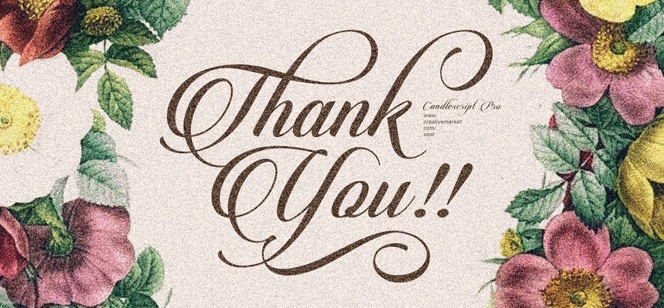
Candlescript Pro font
Candlescript Pro font is a modern display font with very distinctive handwritten appearance. The typeface is designed with meticulous attention to detail. What strikes you most when you first look at it is the expert use of the swashes which makes the font family really impressive and its letterforms – unique. It is obvious that Candlescript Pro’s roots are deeply in the calligraphy to which it owes its smooth, friendly appearance which makes it perfect for numerous applications such as logos, wedding invitations, titles, advertisement, etc. Evidently, the script is not suitable for body text. However, it is designed in a very versatile fashion which allows it to be combined perfectly with other typefaces, substantially beautifying your project.
Candlescript Pro comes in script and italic weights with the stunning 2850 glyphs provided and extras like upper and small caps, numerals, fractions, standard and discretionary ligatures, stylistic, contextual and titling alternates, and of course plenty of swashes. All this gives the users the limitless opportunities to create countless variations of the letters. There, the only frontier will be your imagination! However, we should mark that the variations of the glyphs work manually, not automatically. Also, Candlescript Pro font works best with OpenType compatible software which will allow you to use all of its features.
The beautiful Candlescript Pro font family is designed by the Indonesian type designer M Fairuzulhaq, the founder of the independent Vast type foundry, based in Semarang. We are very pleased with this new Asian release and can’t wait for the future works of this author.